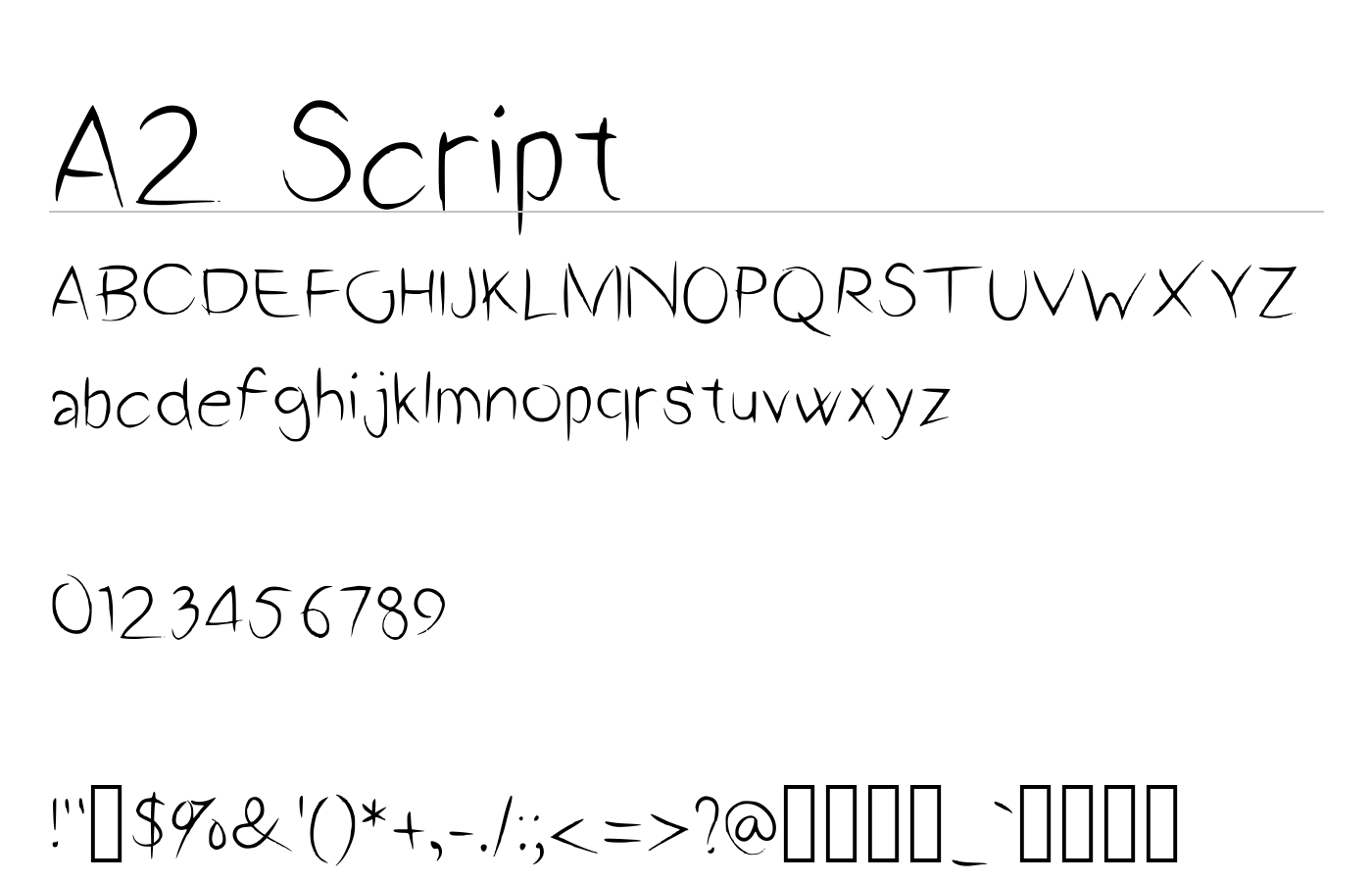
A2 Script is a whimsical and delicate handwritten script font that features thin, slightly irregular strokes and tall, narrow letterforms. Its playful yet refined character makes it perfect for informal branding, creative projects, and personal invitations where a light, friendly, and artistic touch is desired. This font works best in headlines or short text rather than body copy, adding personality and a sense of originality to any design.
A2 Script Font
About A2 Script Font